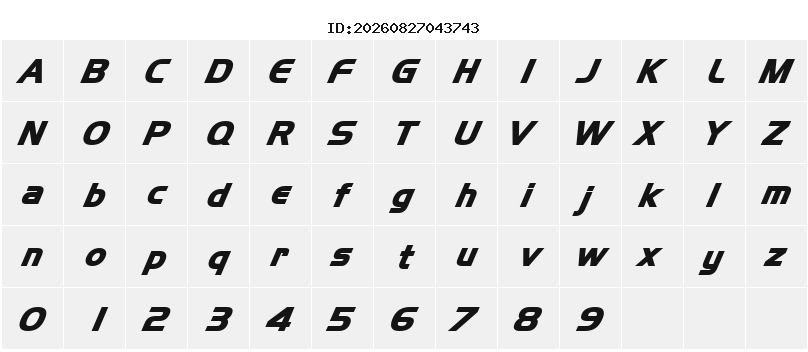
667-CAI978 Preview
• Font Name: 667-CAI978
• Font ID: 667-CAI978:Version 1.00
• Full Font Name: 667-CAI978
• Version: Version 1.00 February 20, 1999, initial release
• PostScript Name: 667-CAI978
• Character Count: 188
About 667-CAI978.ttf
667-CAI978.ttf is a modern, elegant sans-serif font designed for ultimate readability and visual harmony. Perfect for branding, headlines, web design, and print materials.